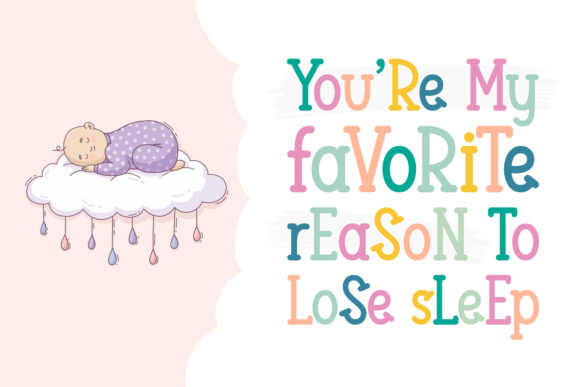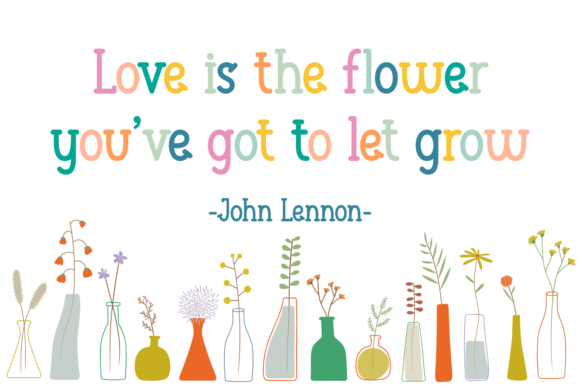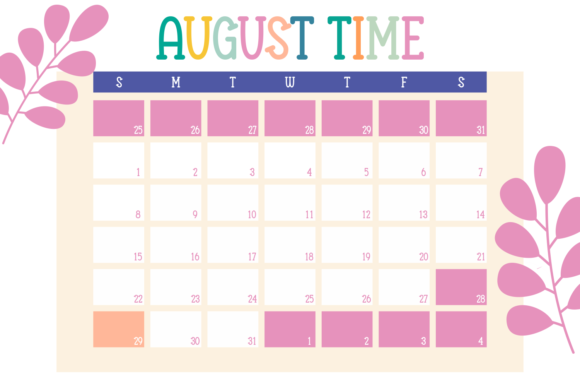
Mutiara Tinatun Font
About Mutiara Tinatun Font
Mutiara Tinatun is a quirky, cute and informal handwritten font that can be used for any chalkboard quote or teaching material! Its authentic look will add a personal and realistic feel to your designs.